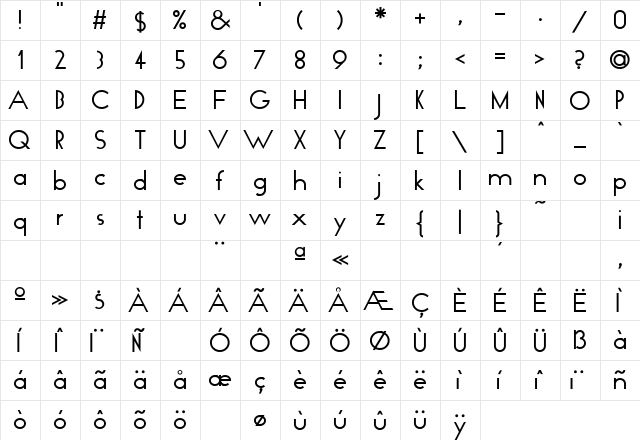
Geo Plain Regular
Design Context for Geo Plain Typeface
Geo Plain offers clean, dependable letterforms without strong stylistic allegiance, making it a practical choice for designers who need flexibility.